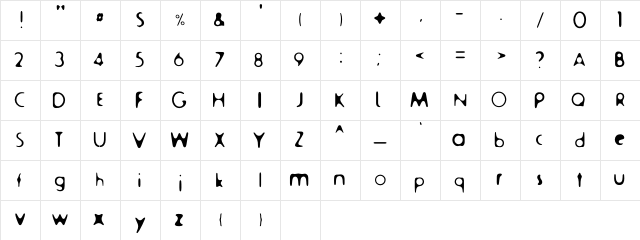
Fur ExtraRounded-Light Free Font
Fur ExtraRounded-Light
Style: ExtraRounded-Light
Design Context for Fur
Fur softens its letterforms with rounded terminals, giving it an approachable, friendly quality that works well in consumer-facing and digital contexts. Its slender proportions lend an understated elegance to any composition.
Font Pairing: Pairs well with a rounded or humanist sans for body copy, maintaining the friendly tone without relying on Fur to carry extended reading.
Pro Tip: Use Fur for UI elements, app interfaces, and anywhere a friendly, approachable tone needs to be maintained without sacrificing clarity.